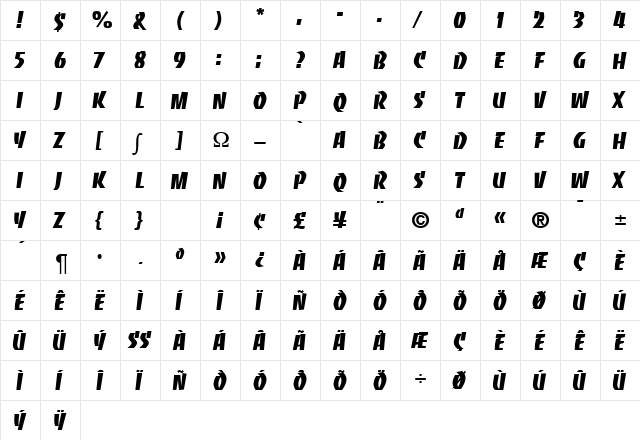
Bandit DB Regular
Design Context for Bandit DB Typeface
Bandit DB offers clean, dependable letterforms without strong stylistic allegiance, making it a practical choice for designers who need flexibility.